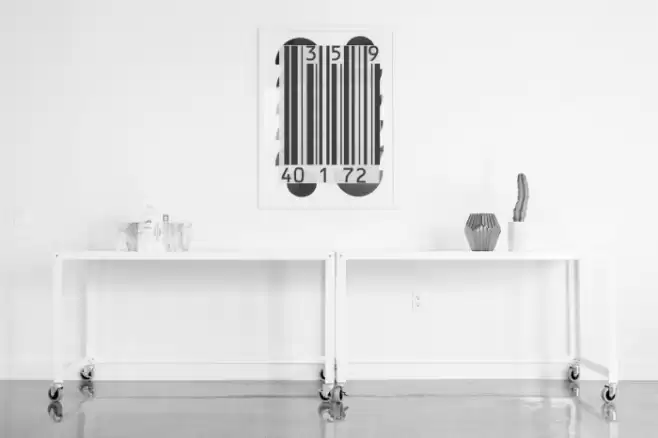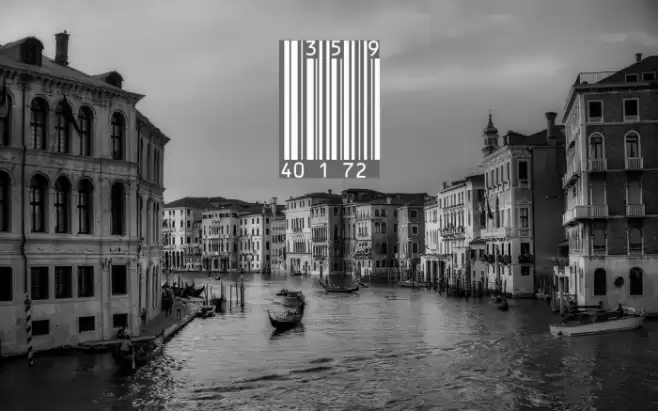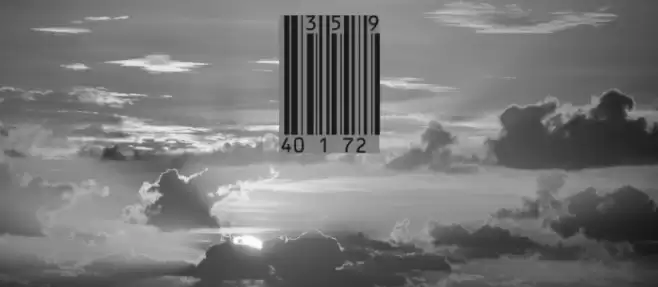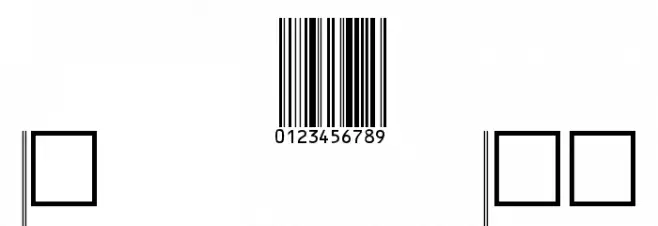
EanBwrP72Tt Font
EanBwrP72Tt Description
A barcode-style font consisting of vertical bars of varying thickness and spacing, accompanied by numeric digits placed above or below the bars. The font mimics the appearance of standard barcode symbologies used for product identification.
Barcode-inspired font with numeric digits and vertical bars from Dingbats fonts.
- Proposed Projects: Product packaging, retail labels, inventory management, tech or industrial design projects.
- Character Spacing: Tight
- Overall Style: Modern, Industrial
- Use Case: Product labels, packaging, retail signage, tech branding.